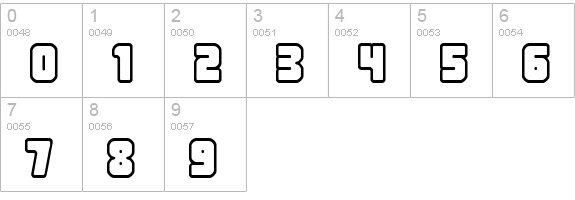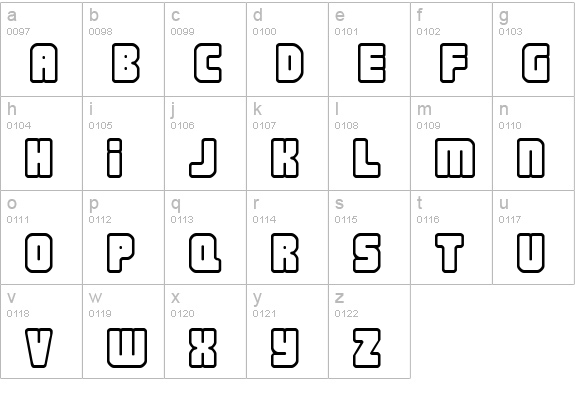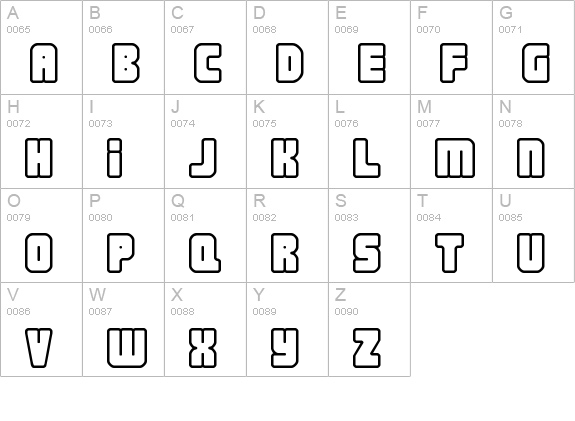
Nonstop Font Details
Introducing Nonstop font, a modern and sleek typeface designed to make your projects stand out. With its clean lines and contemporary style, Nonstop is perfect for a wide range of design applications, from branding to digital marketing. This versatile font exudes a sense of sophistication and professionalism, making it a great choice for any project that requires a touch of elegance. But the best part? Nonstop font is completely free to download at FontsMarket.com. That's right, you can elevate your designs with this premium font without spending a dime. So why wait? Give your projects a fresh and stylish look with Nonstop font today!